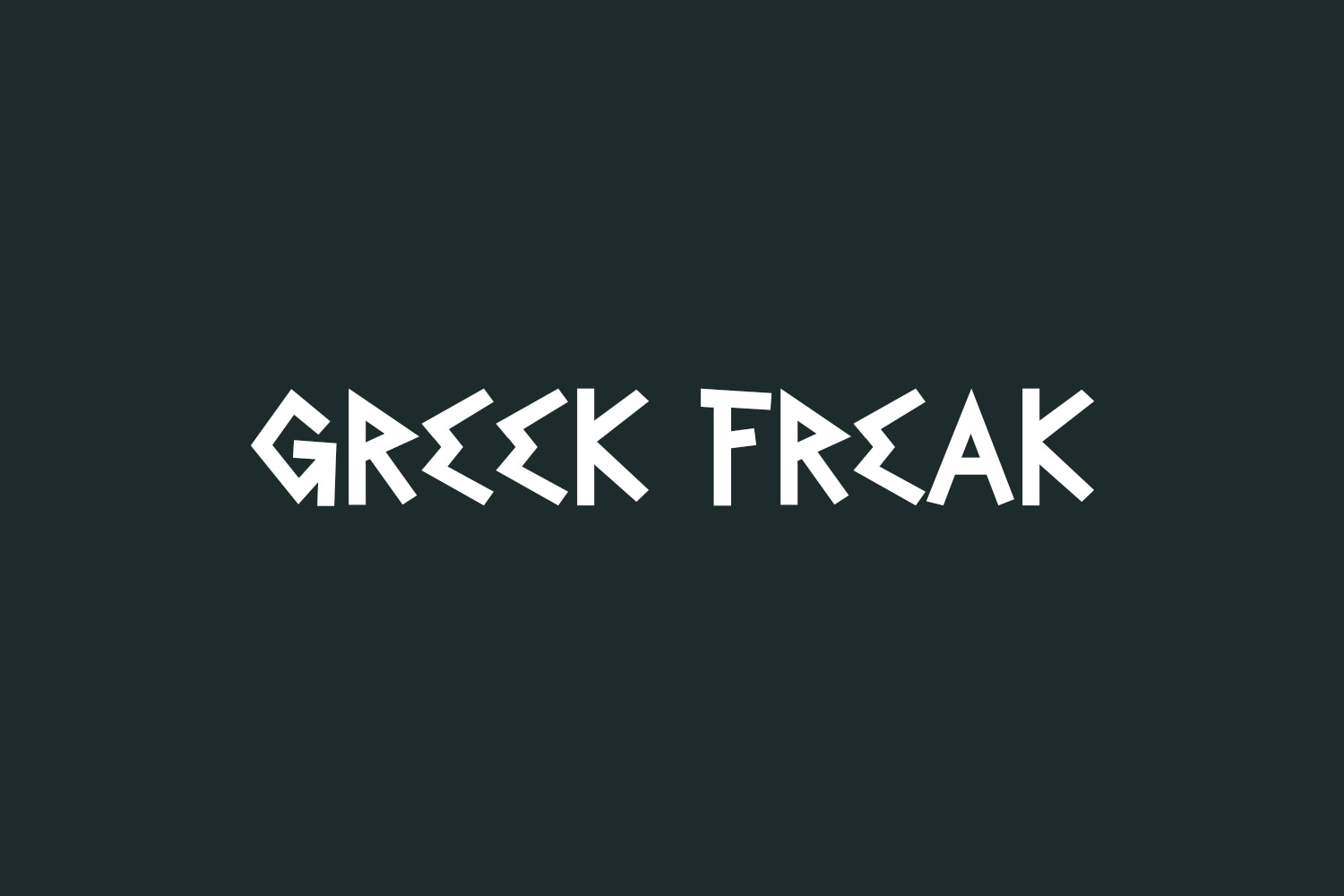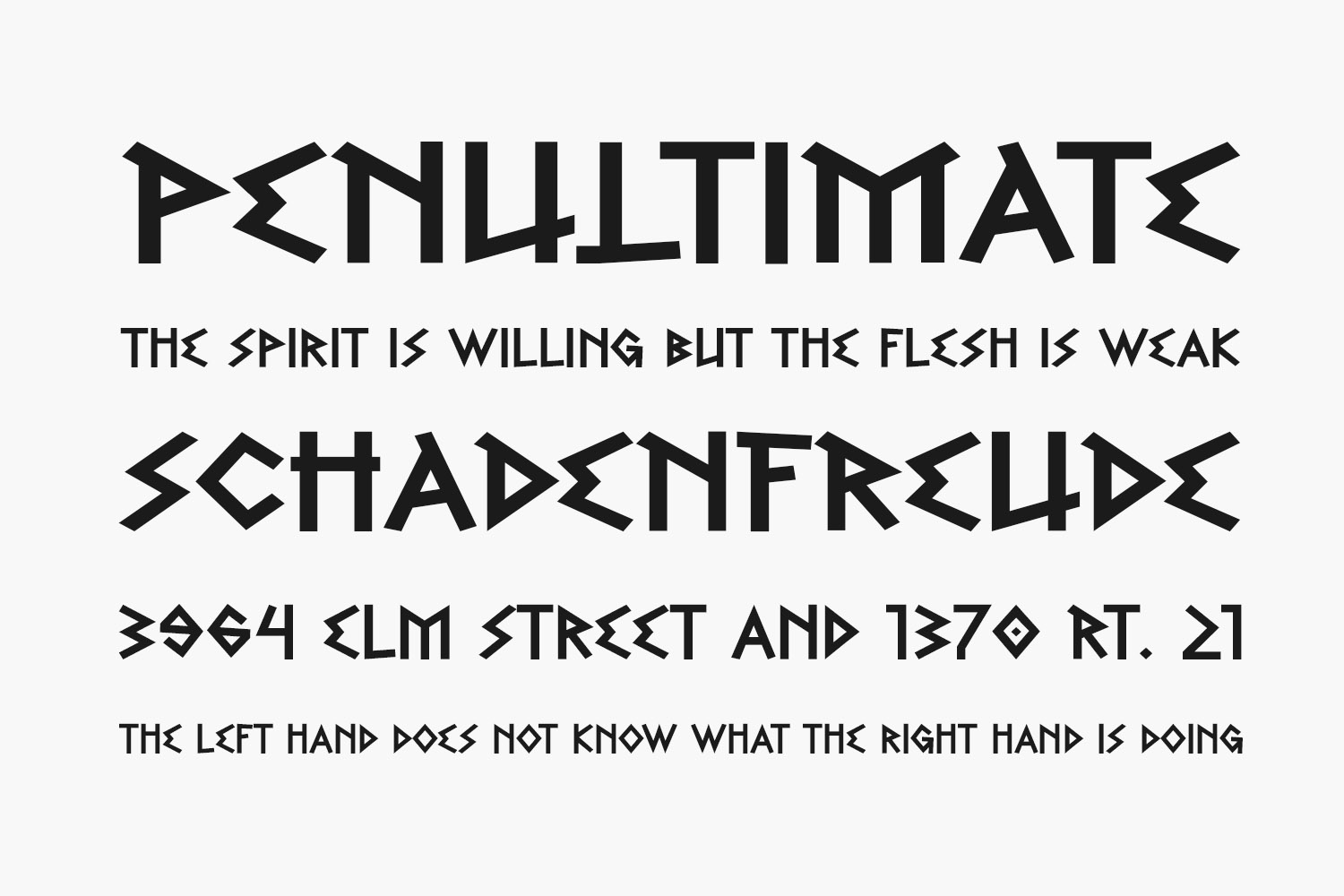
Greek Freak Free Font, an awe-inspiring display font inspired by the gods of Ancient Greek mythology, is now available. Tailored for history books, online games, stationery, school supplies, posters, movie titles, YouTube covers, thumbnails, social media posts, and more. Incorporate it into your fonts library and let its essence ignite your creative spark. Greek Freak Free Font is free for personal use only. Please purchase the full version for commercial use.